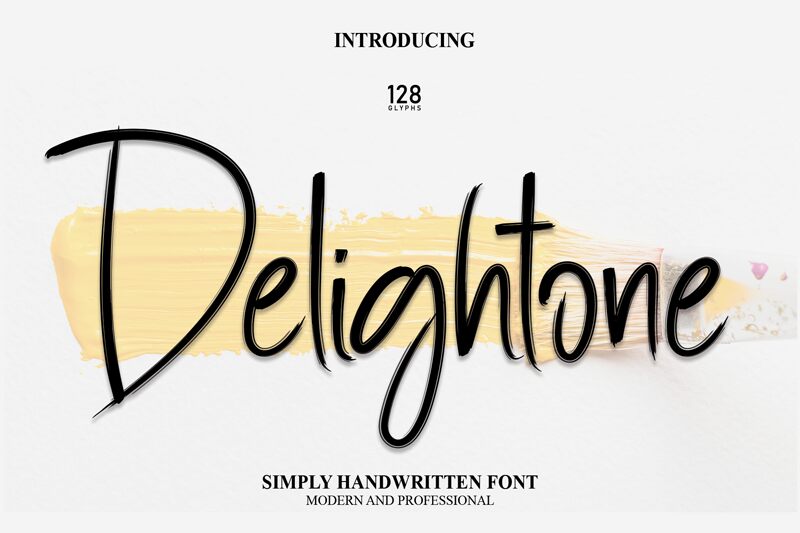
Delightone
Delightone, crafted by Scratchones, exudes a personal touch with its handwritten style that brings warmth and charm to any creative endeavor. This font's light weight contributes to its delicate and airy feel, making it a perfect choice for designs that require an elegant yet subtle flair. With each stroke reflecting the carefree beauty of handcrafted artistry, Delightone is well-suited for invitations, branding materials, and personalized goods where a touch of whimsy is desired.
The aesthetic appeal of Delightone lies in its fluidity and grace-a timeless choice that can enhance the narrative of any project it graces.